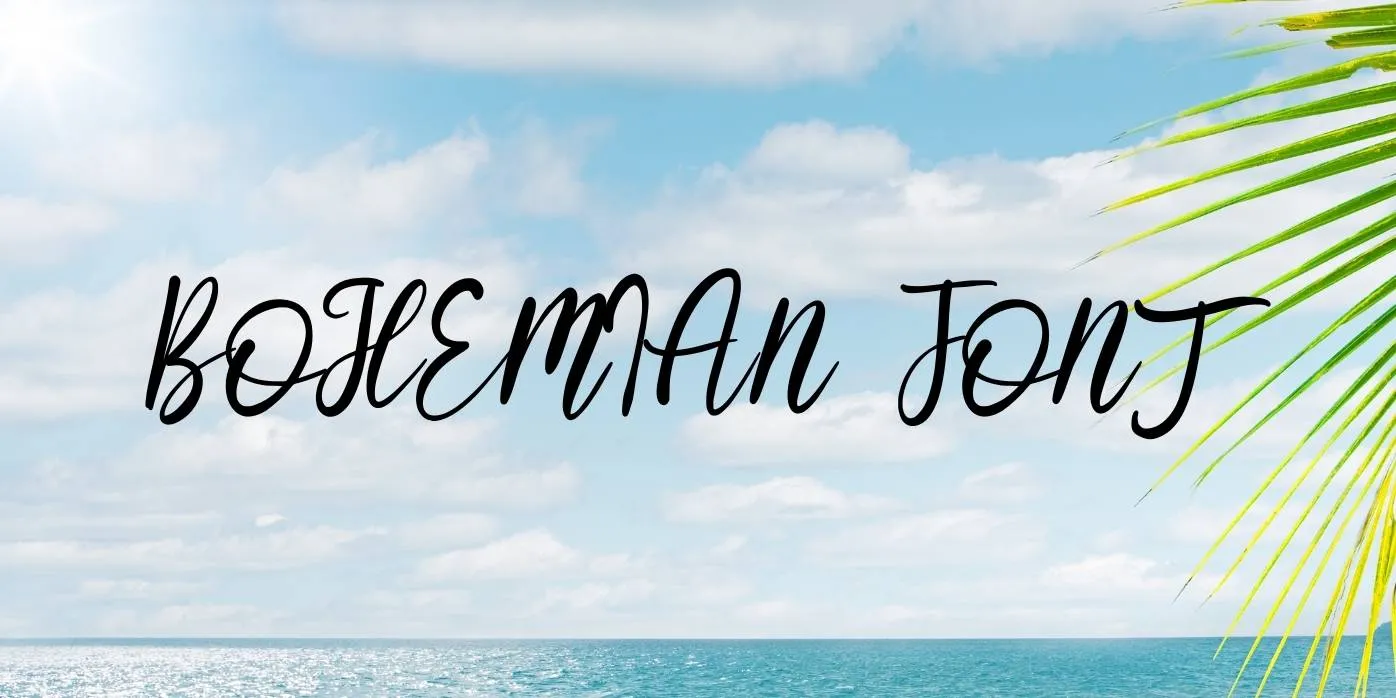
Bohemian Font
Introducing a very gorgeous handmade signature style typeface with connected letters that is known as Bohemian Font. The gorgeous font family belongs to a handwritten typeface family and was designed by Vultype. This pretty cool typeface has an OpenType layout and Postscript outlines features. The bohemian font has a handwritten texture with connected letters glyphs that contain Uppercase and Lowercase letters, Numbers and Numerals, general punctuations, and useful required symbols also.